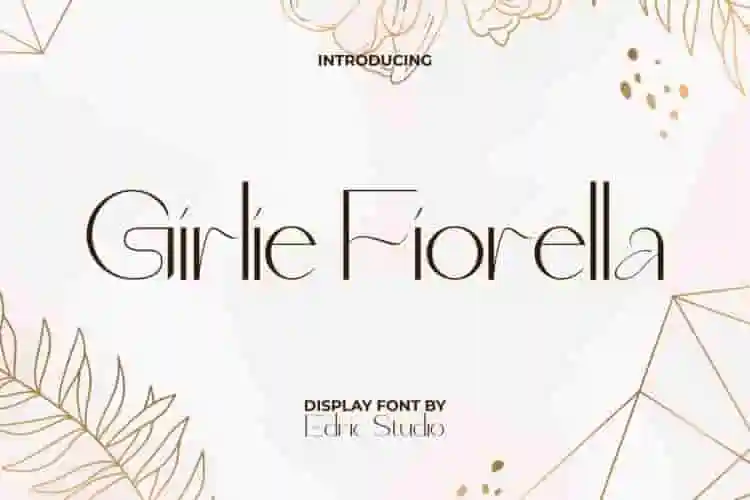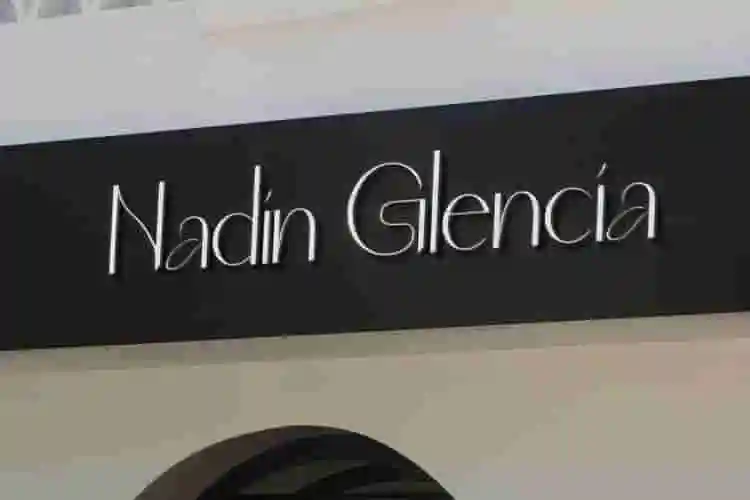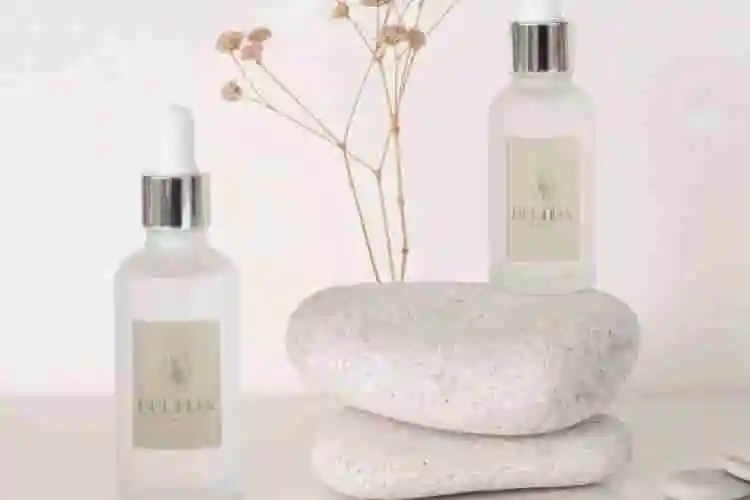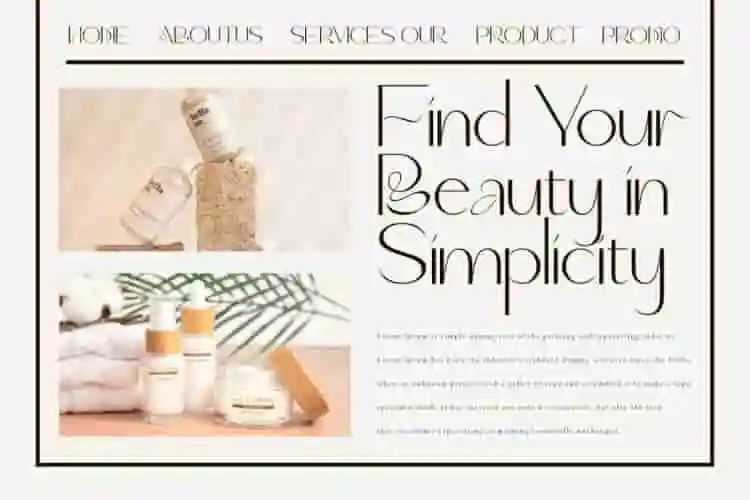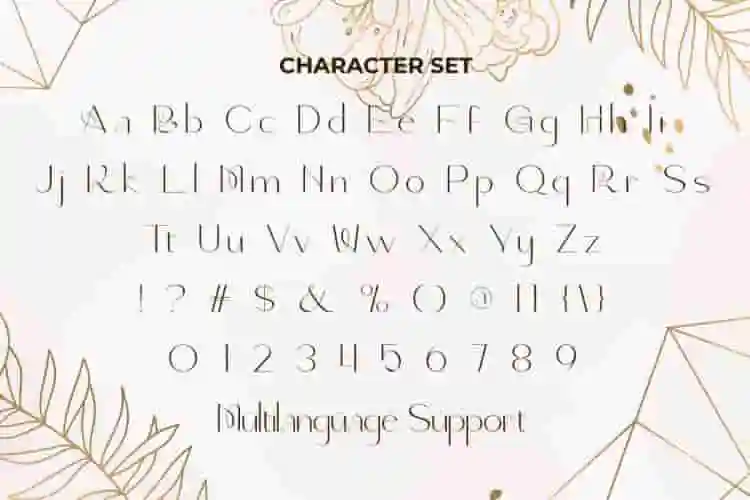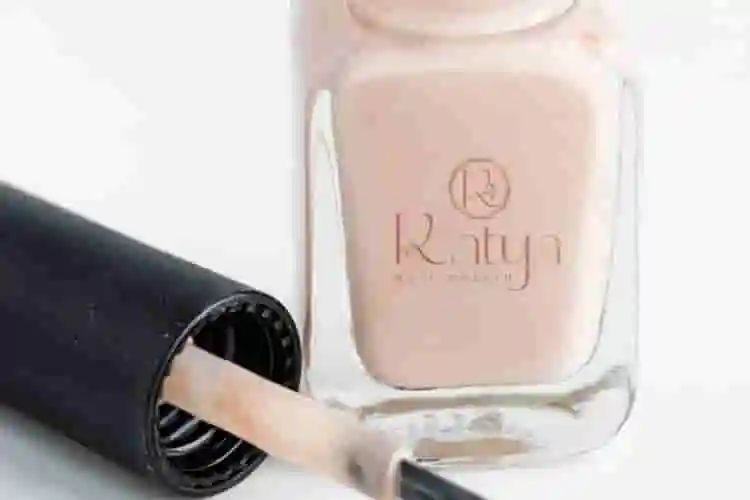
Girlie Fiorella Font is a sophisticated luxurious display font that is elegantly designed with attention to details. The unusual curves of this font give a very beautiful, formal and unique impression at the same time and giving you a versatile set of fonts which can be used & loved across a range of design projects. Add this elegant typography to any of your creative ideas and watch how it works well for any industry, such as beauty clinic, botanist, boutique, cosmetic, fashion, florist, furniture, homeware, interior designers, label, logos, poster, printing, publishing, restaurant, skincare, spa salon, quotes, wedding, writer, and much more.
Girlie Fiorella Font comes with a full set of Uppercase and Lowercase letters, Number, Punctuation, and Symbol. This premium and modern font is created to bring a luxurious and elegant feel to any design. The combination of timeless elegance and contemporary style makes it a perfect choice for cover designs, greeting cards, headers, invitations, screen printing, signage, titles, websites, and more! It will give the impression of authentic handmade writing for a more branded look.
Whether you’re working on invitations, stationery, logos, planner pages, social media graphics, or kids’ apparel, Girlie Fiorella Display Font brings a fresh and joyful touch. It’s the kind of font that feels handwritten but polished — ideal for handmade brands, small shops, and creative entrepreneurs.
This display font is designed to stand out while remaining easy to read. Its soft, rounded shapes and friendly aesthetic make it a go-to choice for projects that need to feel light, happy, and stylish.
Girlie Fiorella includes a full set of uppercase and lowercase letters, punctuation, and multilingual support. It works beautifully with design platforms like Canva, Adobe Illustrator, Cricut, Procreate, and more — so you can start creating right away!